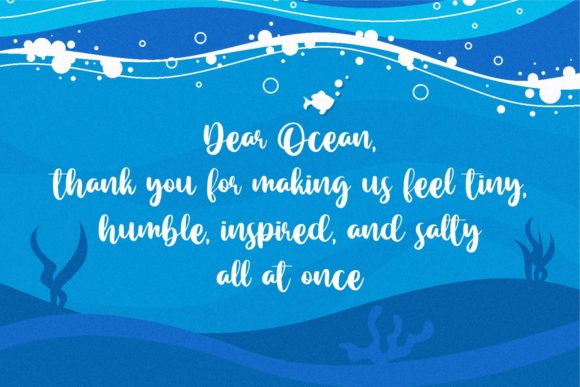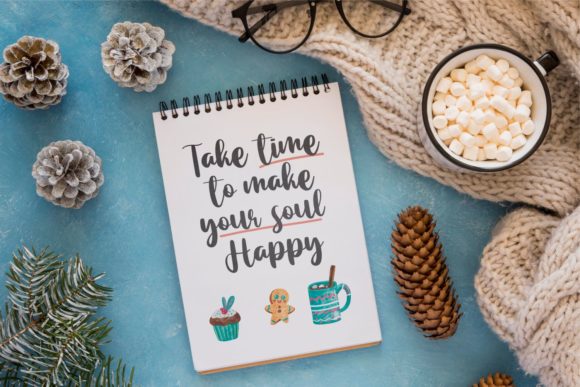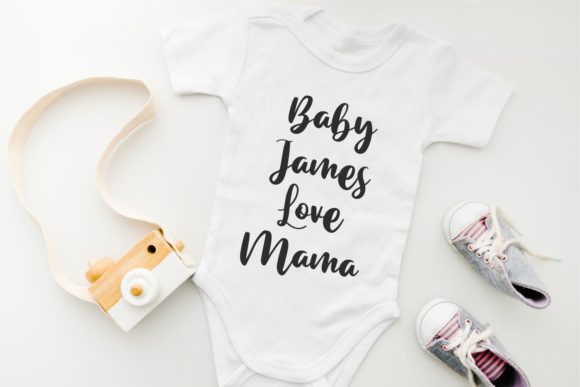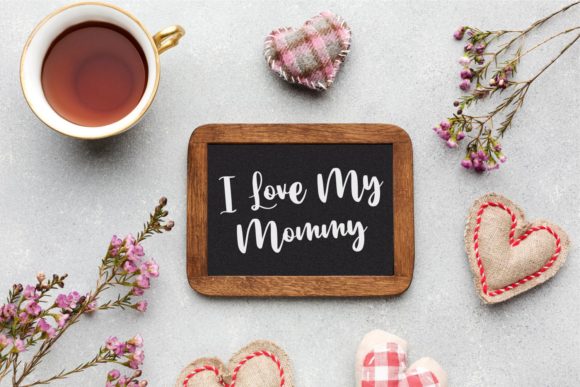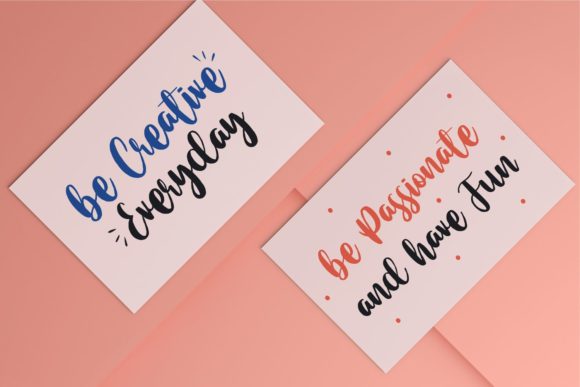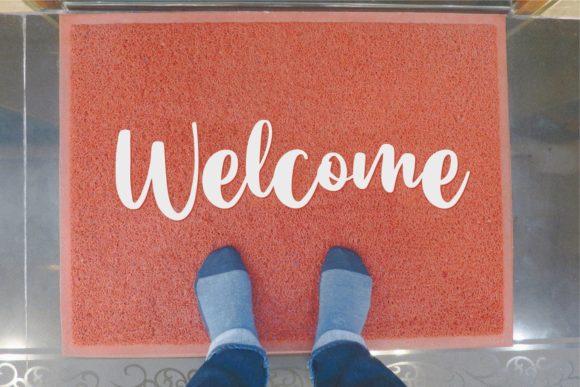
Introduction to Ocean Sunshine Font
Ocean Sunshine is a romantic and round lettered script font.
It has a sweet and gentle touch and it is the ideal choice for creating radiant designs .
Key Features of Ocean Sunshine Font